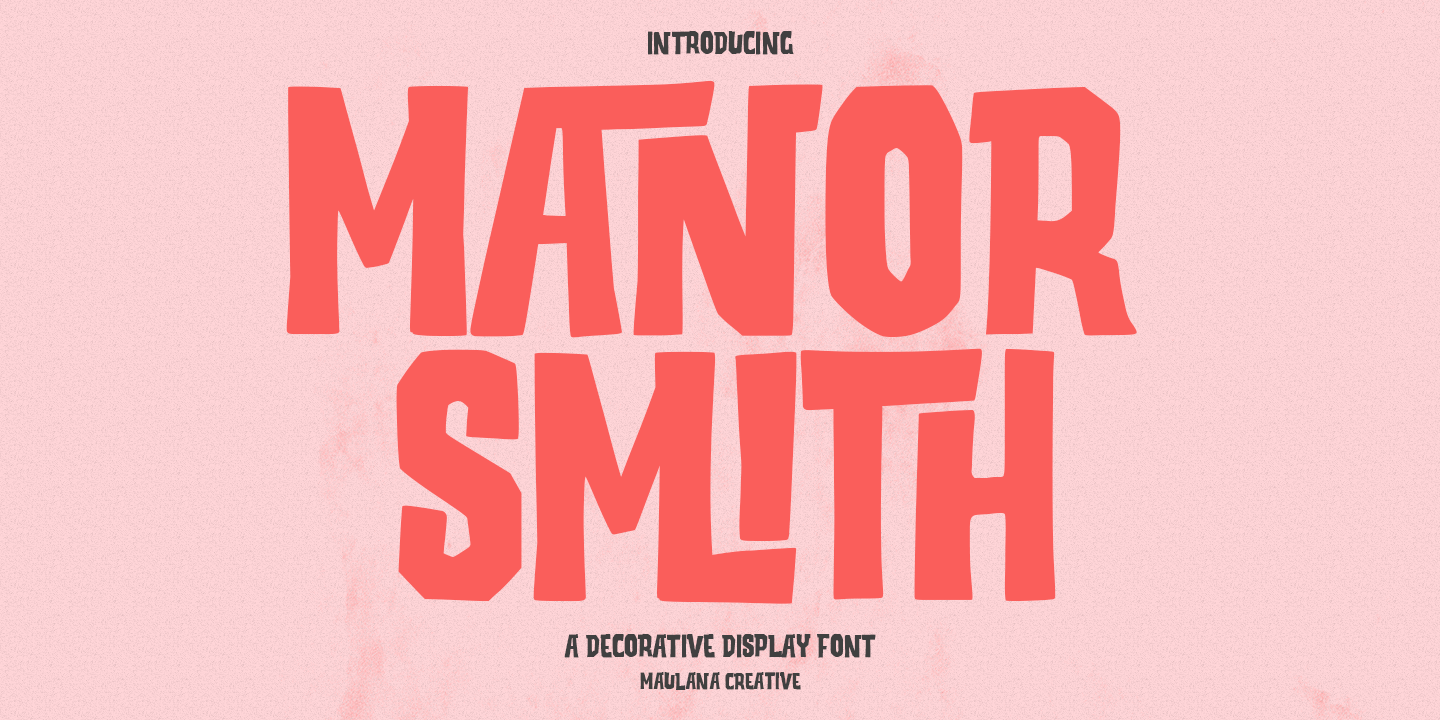
Manor Smiths Font excels in aristocratic estate branding, traditional blacksmith workshops, heritage manor house signage, historical metalworking demonstrations, luxury countryside hotels, artisanal ironwork companies, medieval festival materials, and authentic English countryside experiences. This distinguished typeface brings aristocratic craftsmanship and manor house elegance to any project requiring noble, traditional typography with authentic estate heritage and masterful artisan credibility.
What makes Manor Smiths Font exciting is its perfect embodiment of aristocratic craftsmanship and estate tradition that captures the skilled artistry of manor blacksmiths and the noble heritage of English countryside estates where master craftsmen created beautiful ironwork for generations. The font features robust letterforms with forged character and aristocratic proportions that mirror the strength of hand-forged metal and the dignified elegance of manor house architecture while maintaining excellent readability for heritage and luxury applications. Its noble character and artisan authenticity make it ideal for luxury estates, traditional craftsmen, and heritage organizations celebrating aristocratic traditions and masterful metalworking. The typeface's manor appeal ensures instant recognition of estate quality and artisan excellence.
The Manor Smiths Font family includes Regular, Bold, Forged, Ornamental, and Estate variants, each maintaining the signature aristocratic craftsmanship while offering different expressions of manor elegance and traditional artistry. The family features metalworking symbols, manor elements, and aristocratic decorations that enhance its versatility for heritage branding and traditional craft projects. These variants provide comprehensive tools for creating authentic manor typography with genuine aristocratic character and artisan appeal.
Whether you're designing for heritage estates, traditional craftsmen, or luxury countryside brands, Manor Smiths Font Free Download delivers the aristocratic authenticity that defines genuine manor typography. Its combination of noble elegance and artisan craftsmanship makes it perfect for communicating estate heritage, traditional metalworking, and aristocratic excellence with authentic Manor Smiths Font Free Download distinction and unforgettable manor sophistication.